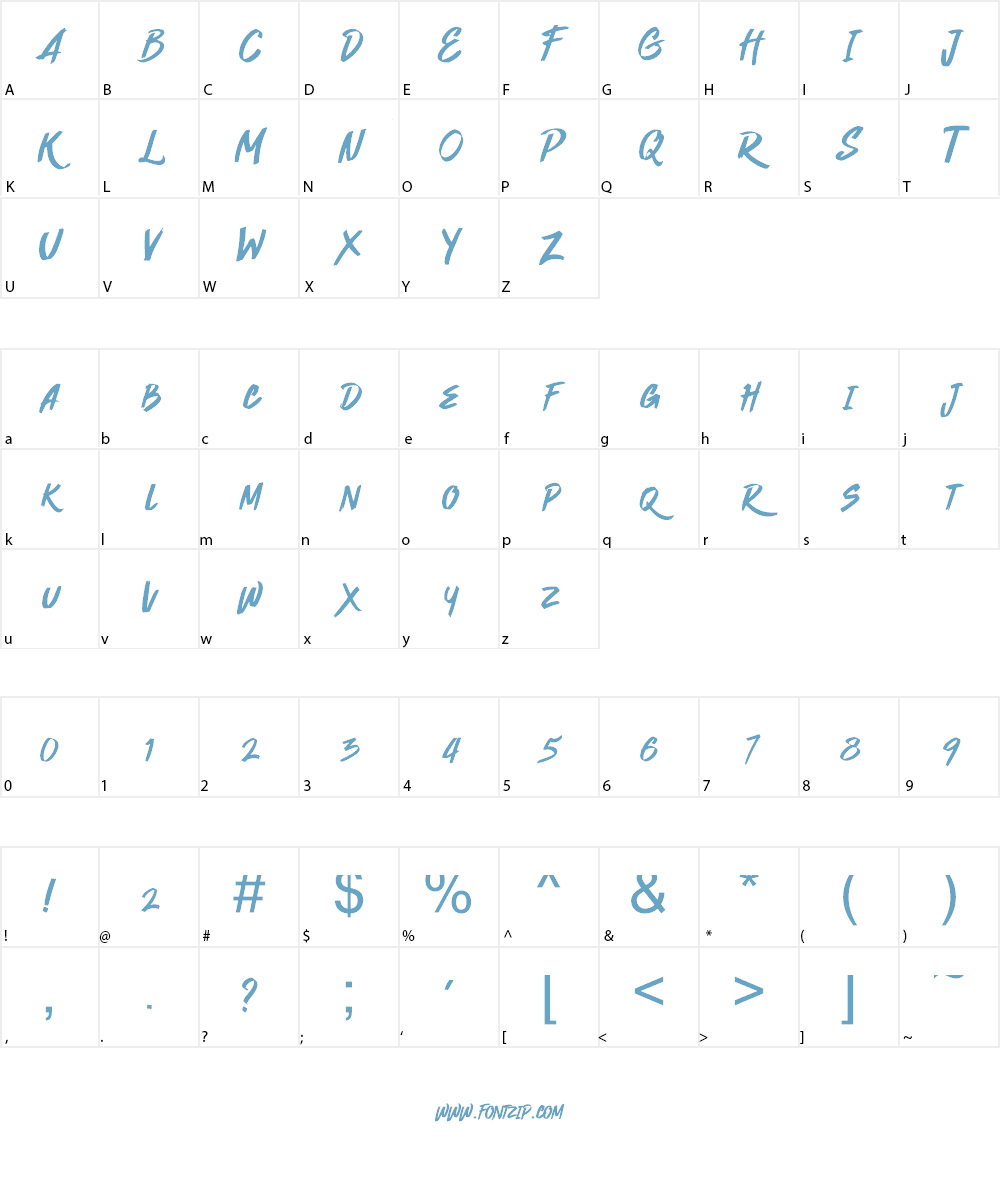
Quickzag is hand drawn marker typeface with an energetic set of marker fonts with fast swipes yet gentle attitude. suitable for energetic, retro, synth-wave, or simple-clean feel that make your statement, product, poster, merchandise, logo or brand stand out.